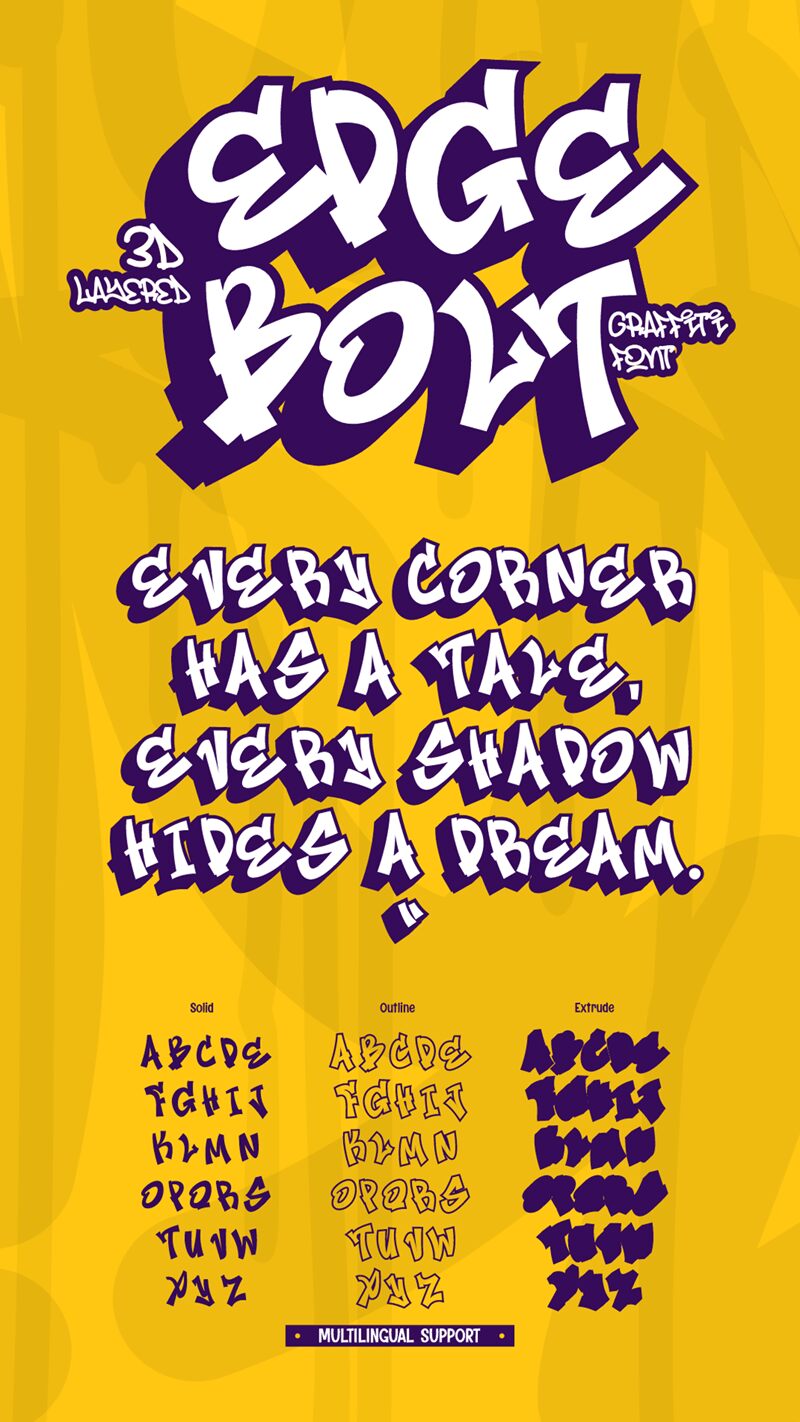
Edge Bolt font family by Cikareotype Studio is a graffiti-inspired font that embodies a dynamic urban aesthetic. Made of bold and iconic shapes in three different font styles, this font family offers high versatility for personal and commercial use. Its modern street style converges both aesthetics associated with graffiti and contemporary use in street art and branding. Slightly quirky and playful, the font family comprises effortless, expressive shapes that are full of character.
With a vibrant presence, the designed family finds itself most suitable for modern creative brands. It is generally preferable for brands that wish to progress themselves with an artsy look. Stationery, typographic wall art, digital signatures, greeting cards, typography artwork, vinyl album covers, and printed magazines are all possible end products.